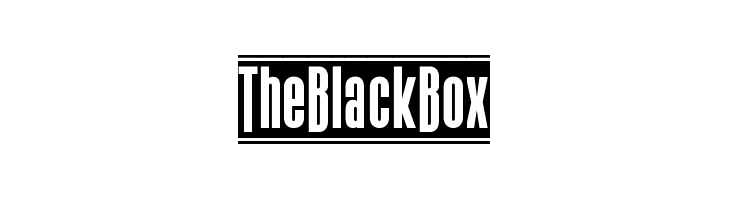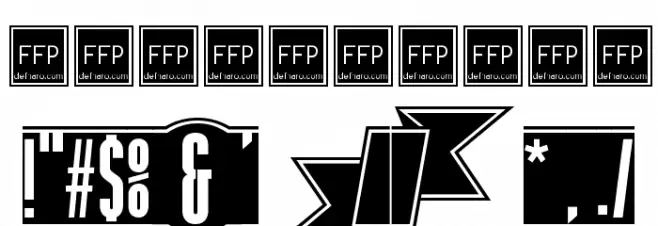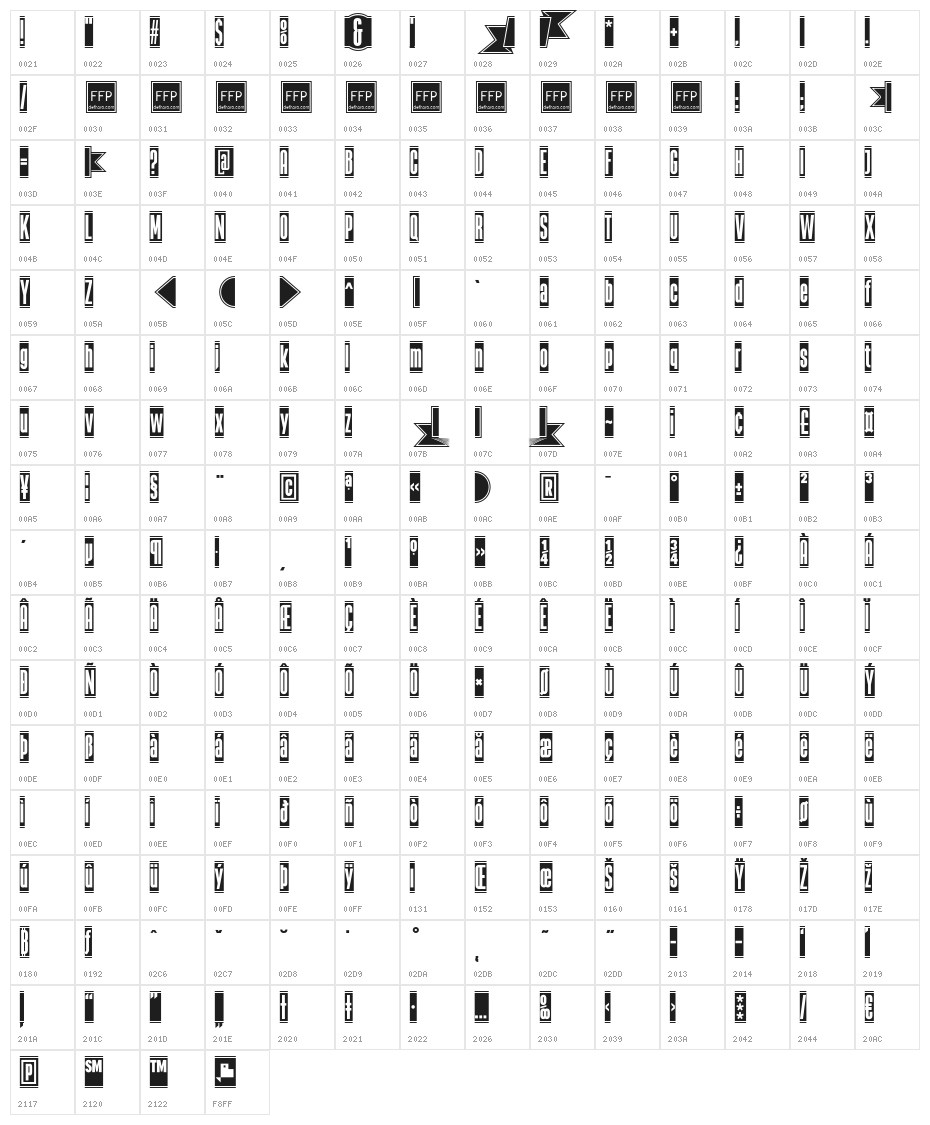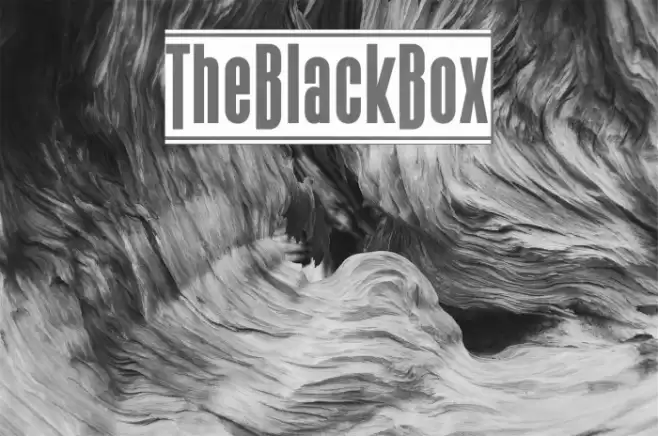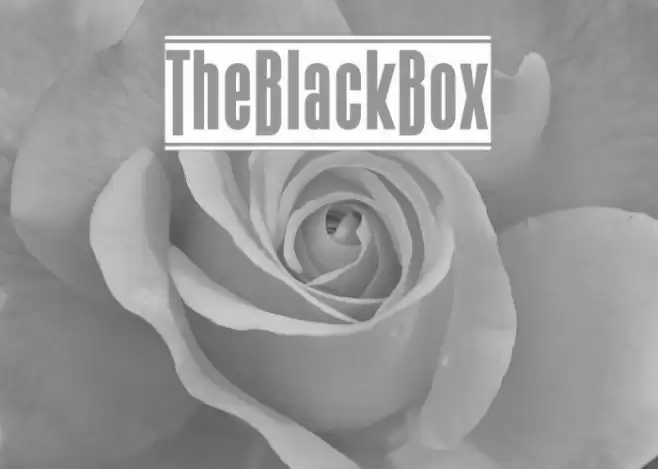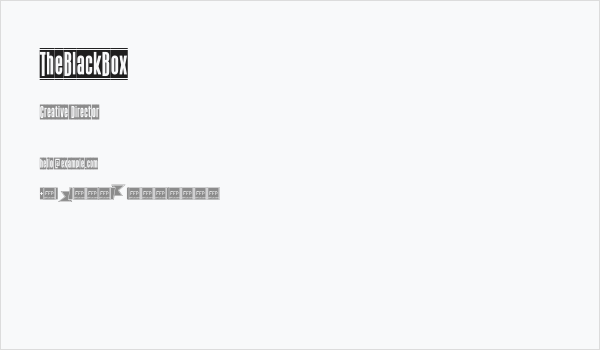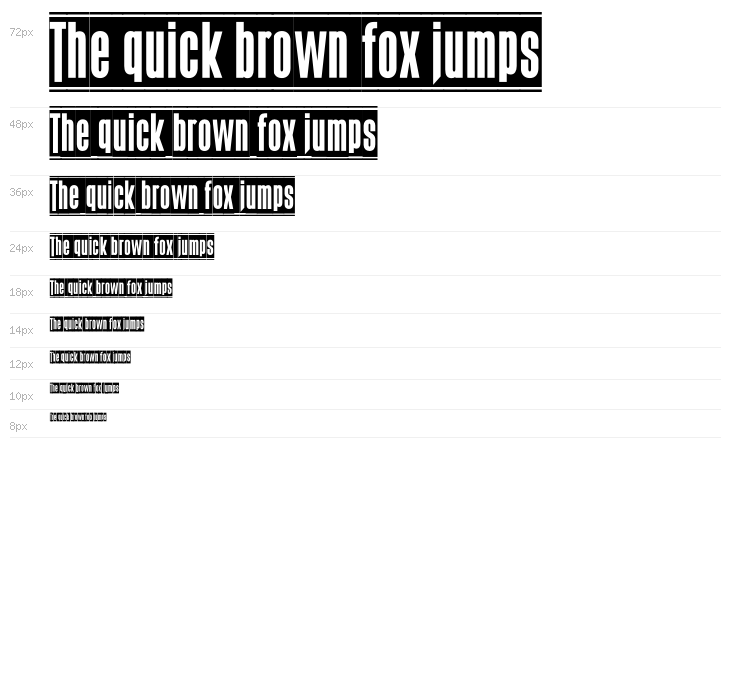
TheBlackBox Font
TheBlackBox Description
This font features a bold and striking design with tall, narrow characters that are enclosed within rectangular boxes. The uppercase and lowercase letters maintain a consistent height, contributing to a uniform appearance. The font's geometric style is accentuated by sharp edges and clean lines, creating a modern and impactful look. The characters are tightly spaced, enhancing the compact and cohesive feel of the text. This font's high contrast between the thick strokes and the negative space within the boxes adds to its visual appeal, making it ideal for attention-grabbing designs.
Proposed ProjectsIdeal for posters, headlines, branding, and any design requiring a bold, modern statement.